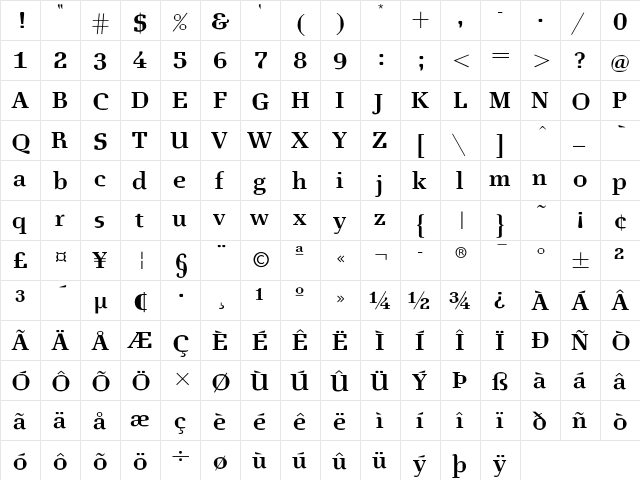
Euclides Regular Font Preview
Euclides Regular
Design Context for Euclides Typeface
Euclides offers clean, dependable letterforms without strong stylistic allegiance, making it a practical choice for designers who need flexibility.